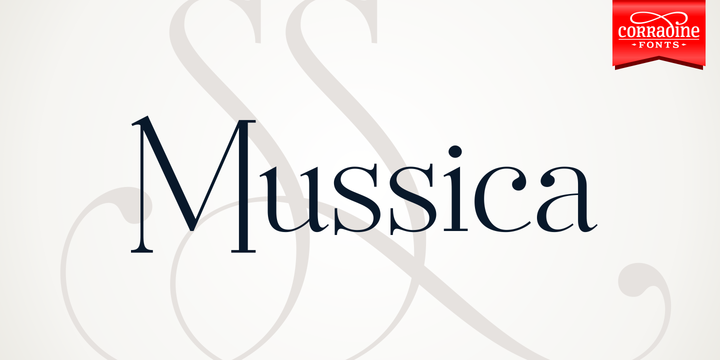
Mussica Family Font
About the Mussica Family Font
Add a touch of class to your work with the Mussica Family Font, a truly exceptional typeface. Mussica is an experimental and hybrid typeface family that explores the exaggeration of ascenders and descenders in a high contrast style.
Mussica’s dramatic ascenders and descenders make it ideal for headlines, posters, and short impactful branding statements. Its high contrast lends itself well to creating a strong visual presence in these applications. However, the exaggerated letterforms make it unsuitable for body text or UI elements where readability is paramount; long paragraphs would be difficult to read.
The font’s personality is bold and expressive, almost theatrical. It suits brands aiming for a memorable and sophisticated yet slightly unconventional image. Think high-end fashion, avant-garde art, or a premium musical instrument company.
Pairing Mussica effectively requires a contrasting but complementary typeface. A clean sans-serif like Futura or a more traditional serif such as Garamond would provide a strong visual counterpoint, allowing Mussica to retain its impact without overwhelming the design. Consider using a neutral sans-serif for body text to maintain readability.
Mussica Family Font Usage Examples
Mussica Family Font Example